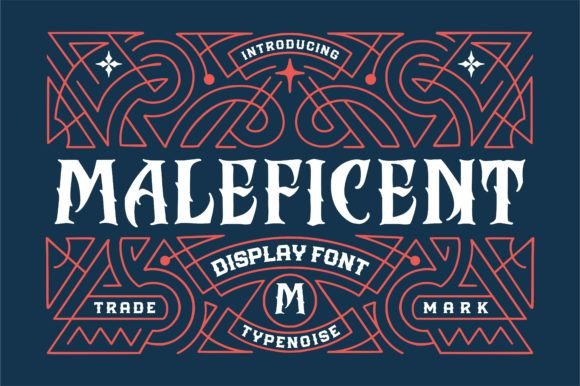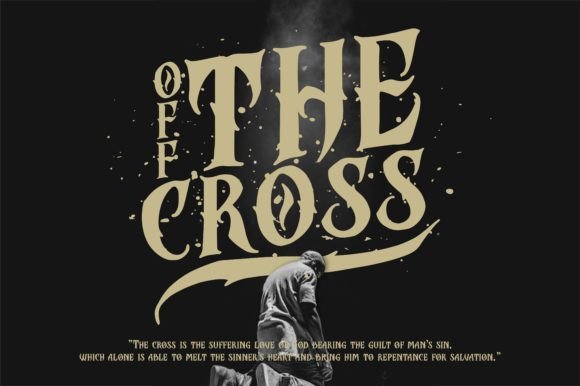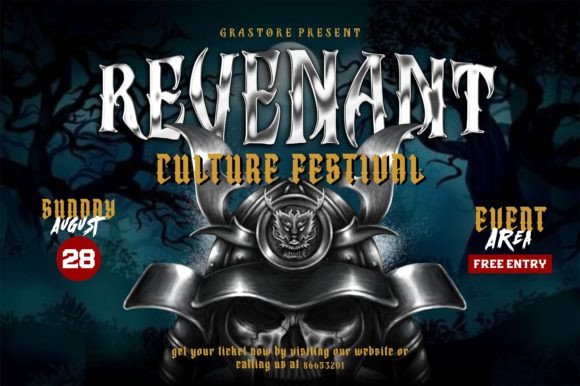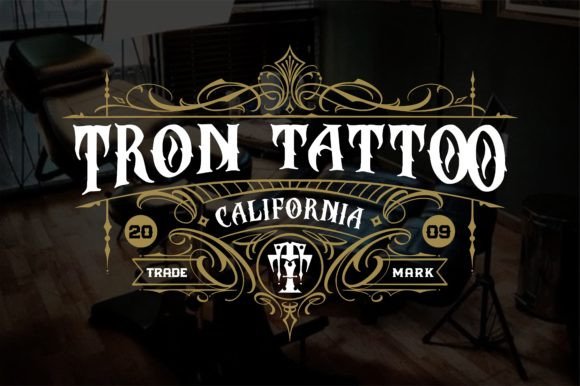
Maleficent Font: Bold Display Typography for Unique Branding & Logo Design
About the Maleficent Font
Let us introduce you to Maleficent Font, where timeless design meets modern craftsmanship. Introducing “Maleficent” – a spectacular blend of brutalism’s raw power and the contemporary flair of dead metal influences. Ignite the wild essence of your creative expressions with this audacious and assertive typeface. A font that radiates a thorny persona, projecting strength and attitude, defining its core identity. Harness the power of “Maleficent” to bring a remarkable boldness to your aesthetic compositions.
Maleficent excels in large-scale applications such as headlines, posters, and branding for products emphasizing strength and rebellion. Its aggressive forms make it unsuitable for body text or UI elements where readability is paramount. Avoid using it for long paragraphs or small sizes.
The font’s core personality is bold and assertive, making it ideal for projects requiring a powerful visual impact. Consider pairing it with a clean sans-serif like Montserrat for contrast, or a more geometric sans-serif like Futura for a modern, high-impact feel. A stark serif like Playfair Display could also work well to add a touch of refined elegance.
For a slightly softer approach, a neutral sans-serif like Lato could balance Maleficent’s intensity, allowing its unique character to stand out without overwhelming the design. Avoid pairing it with other highly decorative or stylized fonts which would create visual chaos.
Maleficent Font Usage Examples
Maleficent Font Example